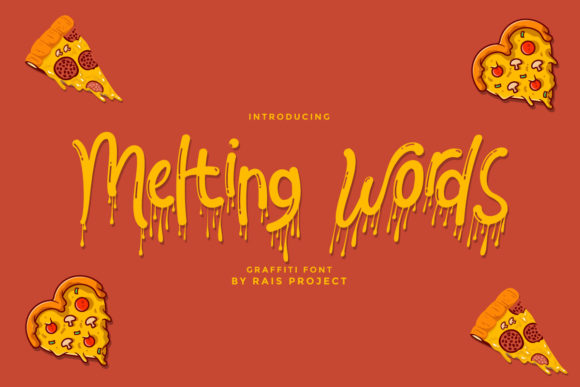
Journey into the realm of Melting Words Font, a mind-bending display font that will ignite your creativity and captivate your audience. Prepare to be mesmerized as your words transform into a symphony of visual delight, leaving an unforgettable impression on every beholder.
Unleash your imagination and immerse yourself in a world of possibilities with Melting Words Font. Its playful and energetic style is perfect for creating eye-catching headlines, captivating social media posts, or adding a touch of whimsy to your branding. Let your designs ooze with personality and charm as you experiment with different colors, sizes, and effects.
With Melting Words Font, you'll have an arsenal of glyphs and swashes at your fingertips, thanks to its PUA encoding. Effortlessly access a treasure trove of alternate characters and stunning ornaments, allowing you to add intricate details and flourishes to your projects with just a few clicks.
But what truly sets Melting Words Font apart is its ability to evoke emotions and leave a lasting impact. Its unique design is crafted to resonate with your audience, creating designs that speak directly to their hearts and minds. Prepare to witness your creations come alive with personality and charm, leaving an unforgettable mark on all who encounter them.
So, dive into the world of Melting Words Font today and unlock a new dimension of creativity. Let your words dance and your designs shimmer with this captivating display font. Experience the joy of creating designs that not only look stunning but also leave a lasting impression.